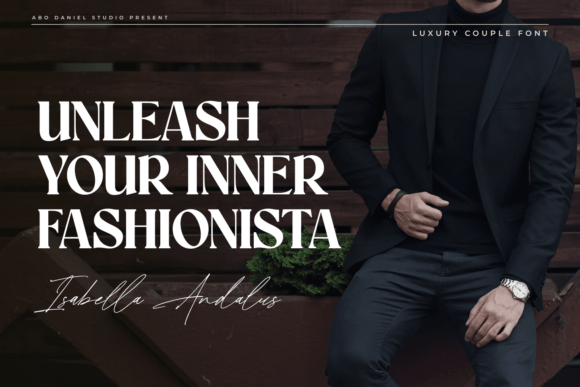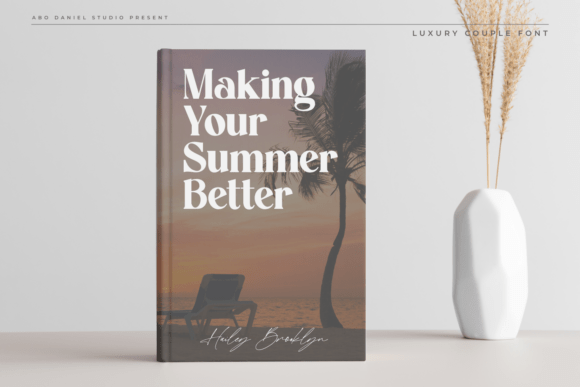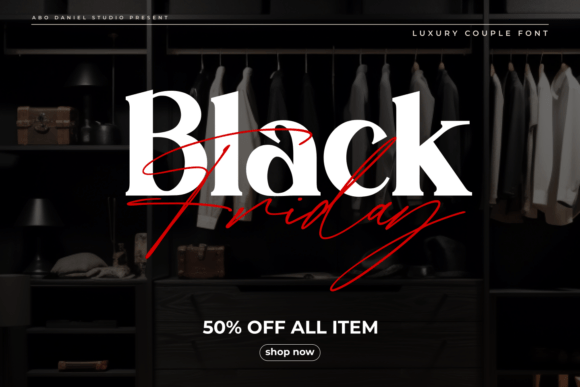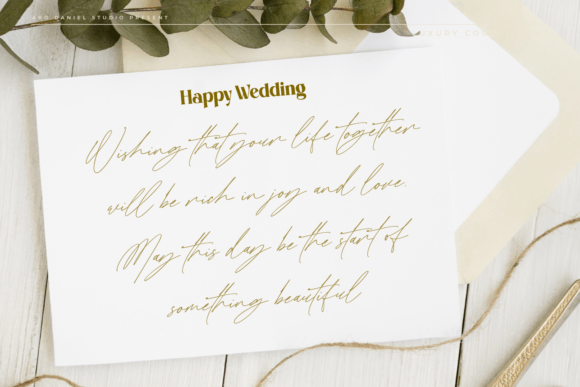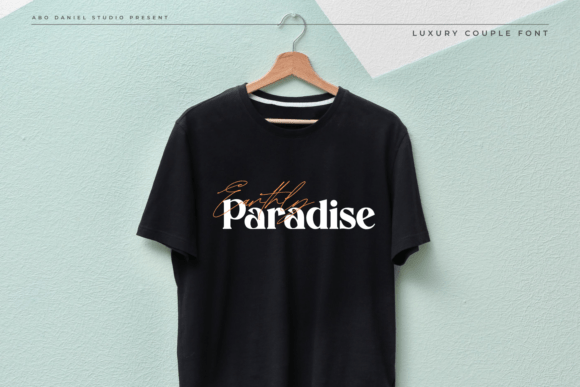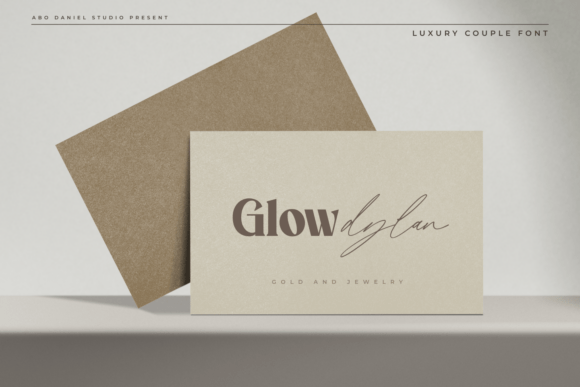
Introduction to Maziyah Duo Font
Say hello to Maziyah Duo, a graceful font duo that blends simplicity and sophistication in one package.
Maziyah Duo Typeface is the definitive โLuxury Couple Fontโ duo, masterfully combining a sophisticated, high-contrast serif with a fluid, authentic signature script to capture the essence of refined elegance and personal intimacy The bold, classical serif boasts dramatic thick-thin strokes and sharp terminals for an authoritative, high-fashion presence, while the accompanying golden script adds a delicate, handwritten warmth with its natural flow and ligature-rich design.
Key Features of Maziyah Duo Font